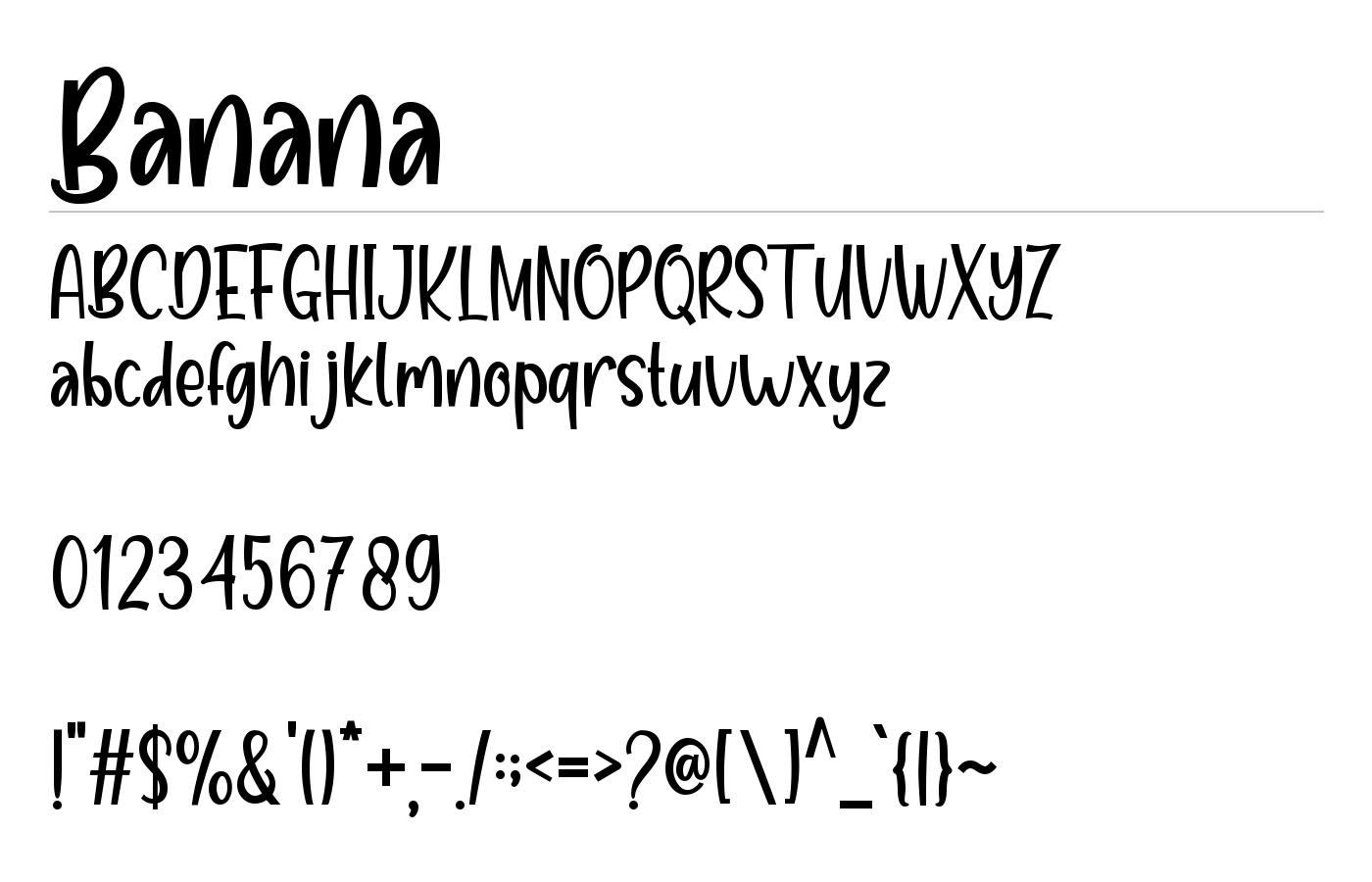
Banana Font is a playful and casual sans serif typeface with a hand-drawn feel that brings warmth and personality to any design. Its tall, narrow letterforms with uneven strokes and slightly quirky shapes make it ideal for informal and creative projects like children’s books, fun branding, or lively posters. This font adds a friendly, approachable vibe while remaining highly legible and versatile for both headlines and short text.
Banana Font
About Banana Font
| Font family | Banana Font |
| Designer | Risma Ramawi |